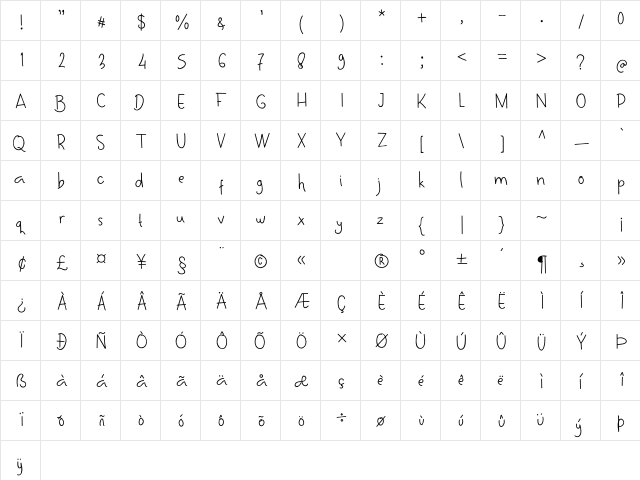
Melon Hunter 2 Regular
Design Context for Melon Hunter 2 Typeface
Melon Hunter 2 offers clean, dependable letterforms without strong stylistic allegiance, making it a practical choice for designers who need flexibility.